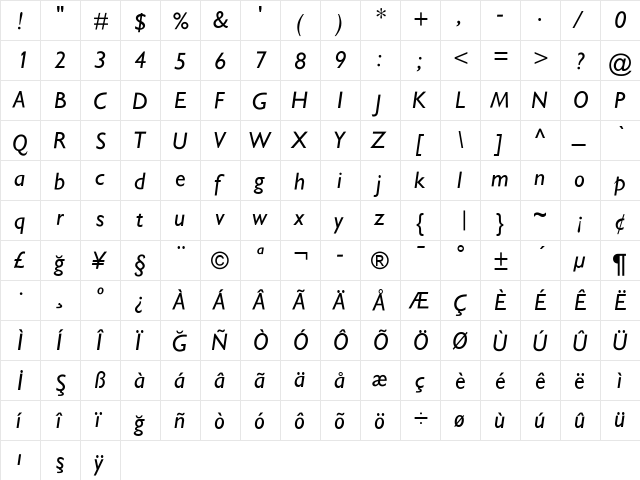
GillSansItalic Regular
Design Context for GillSansItalic Typeface
GillSansItalic takes a measured approach to typography — its balanced proportions and neutral character make it a reliable workhorse for both digital and print work. The dynamic lean of this cut emphasises speed and emphasis in any layout.
Pro Tip: Try GillSansItalic for annotation and caption copy alongside an upright companion — the contrast in angle creates a dynamic but ordered typographic system.